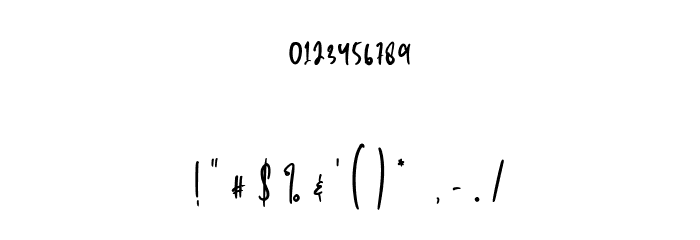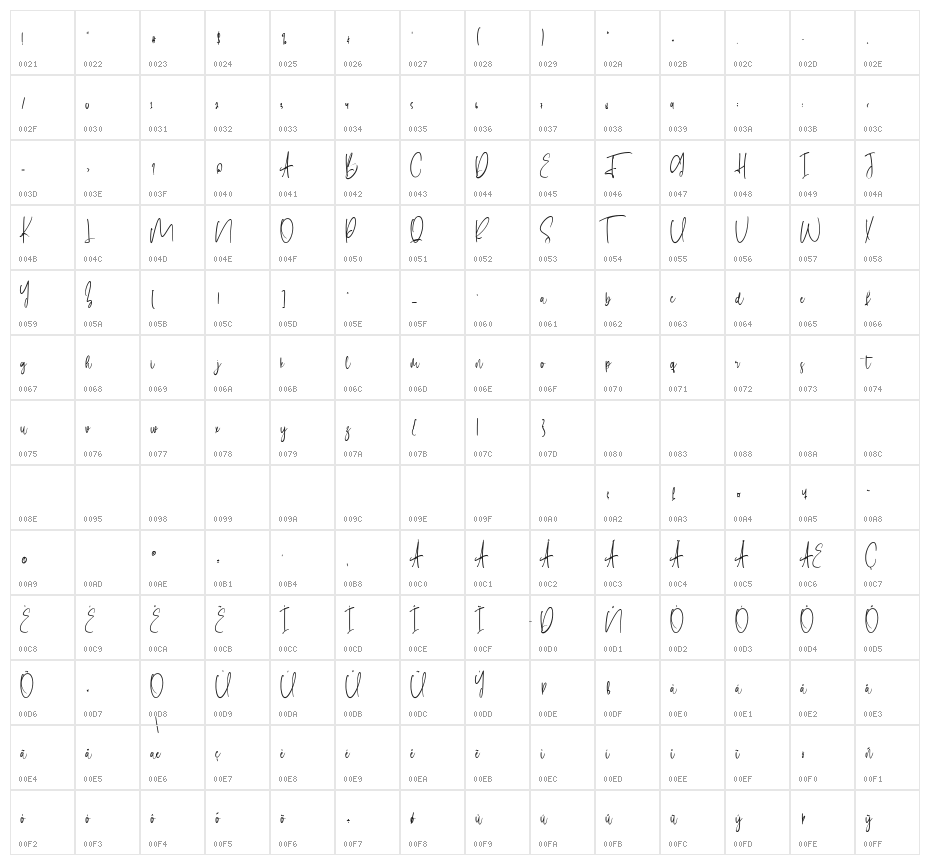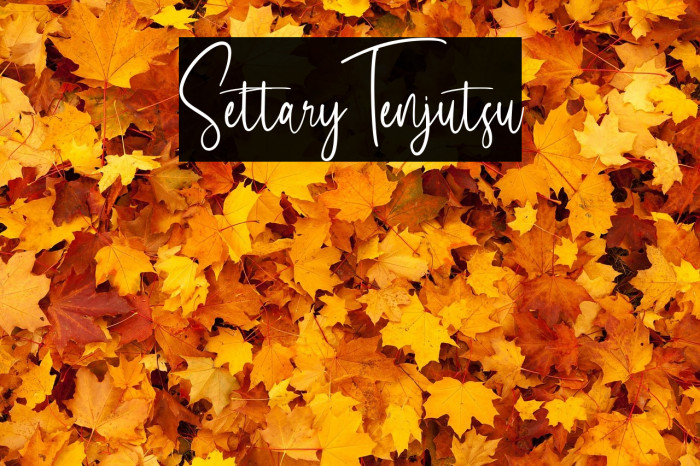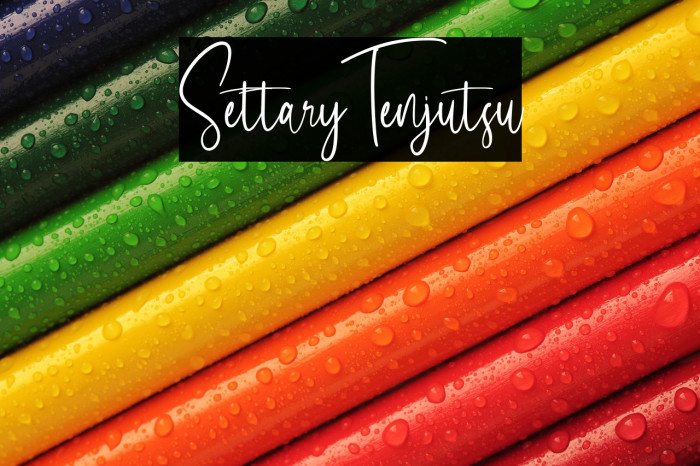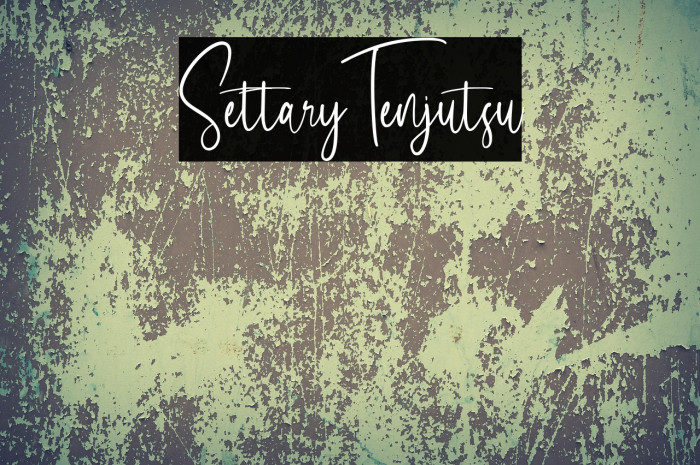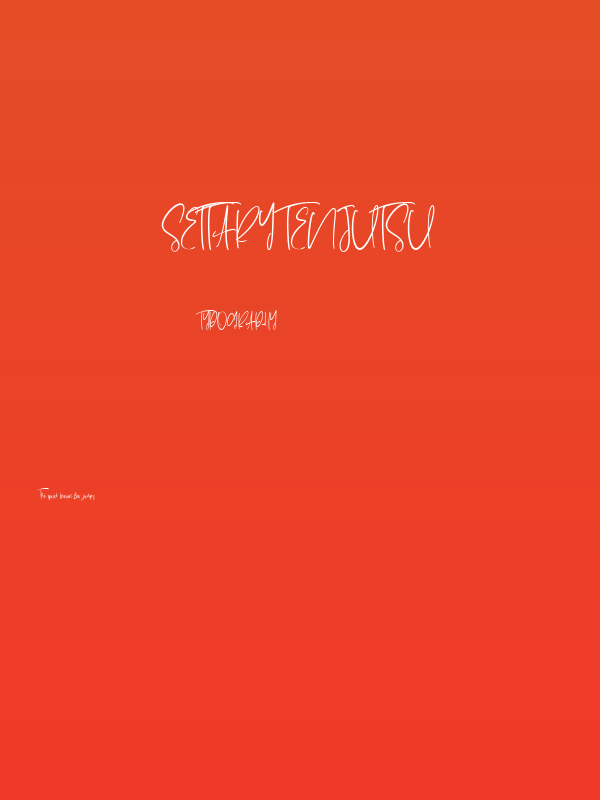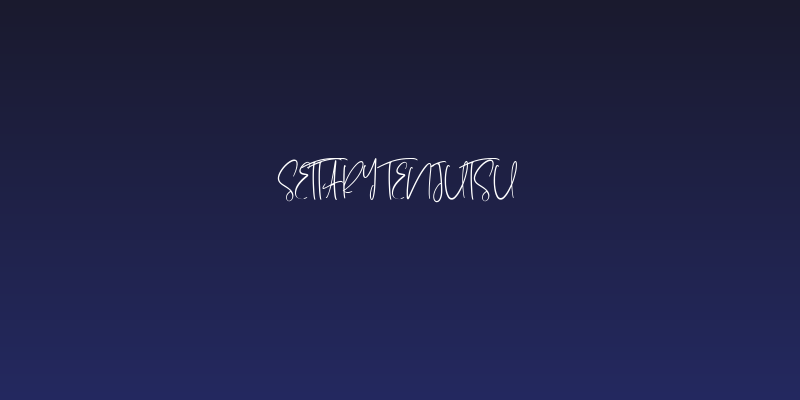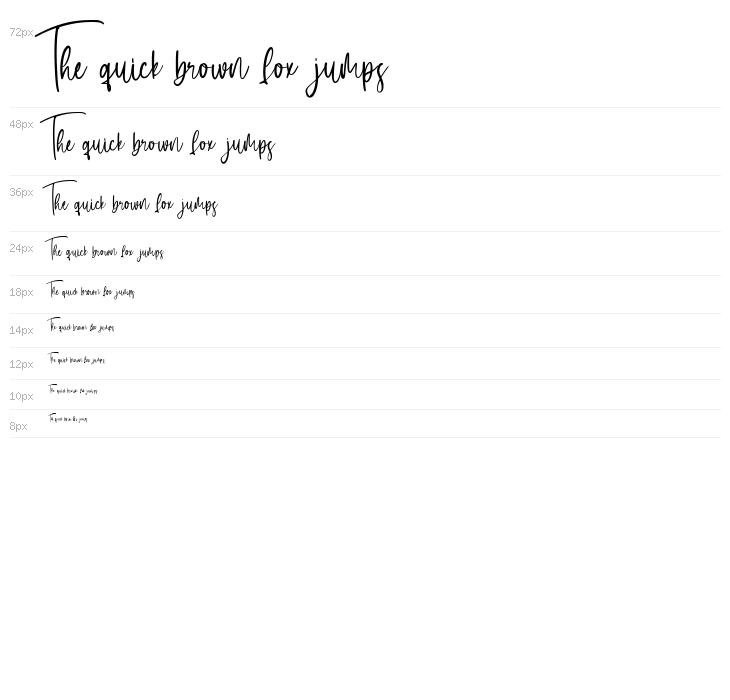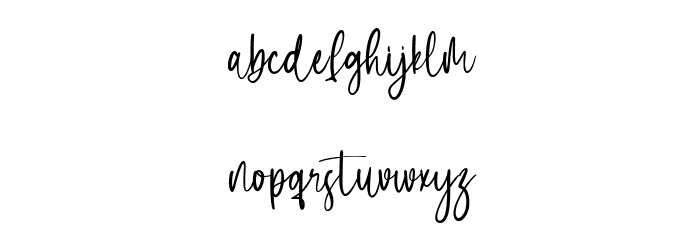
Settary Tenjutsu Font
Settary Tenjutsu Description
This font exudes a playful and whimsical charm, characterized by its flowing, handwritten style. The letters are crafted with a casual elegance, featuring elongated strokes and a slight slant that adds to its dynamic appearance. The uppercase letters are bold and expressive, while the lowercase letters maintain a more delicate and refined look. The numbers and special characters are consistent with the overall style, ensuring a cohesive design. This font is perfect for projects that require a personal touch, such as invitations, greeting cards, or creative branding.
| Use Case | Headlines, Logos, Creative projects |
| Proposed Projects | Ideal for invitations, greeting cards, creative branding, and personal projects. |